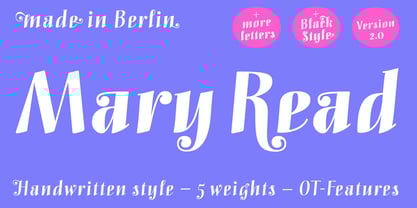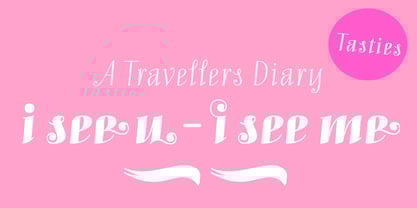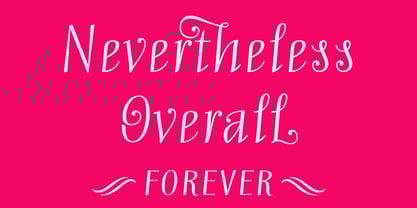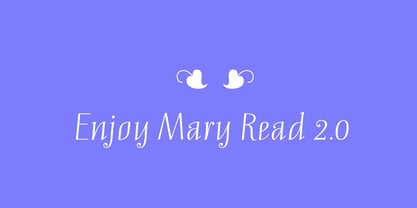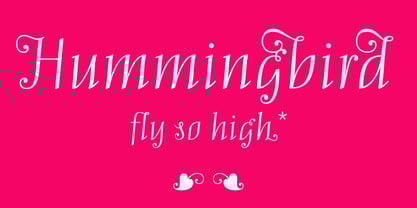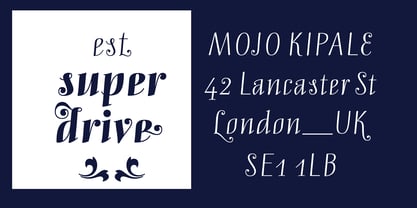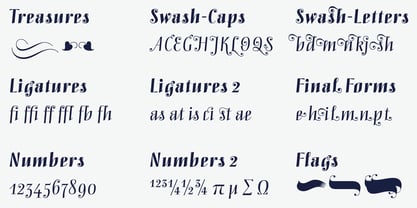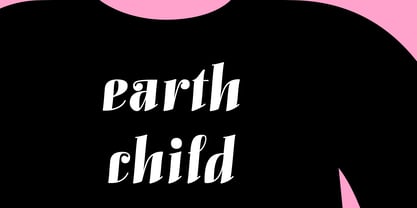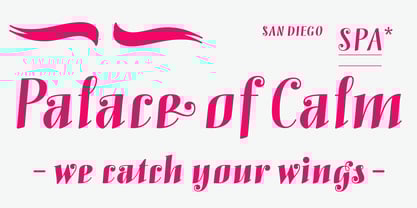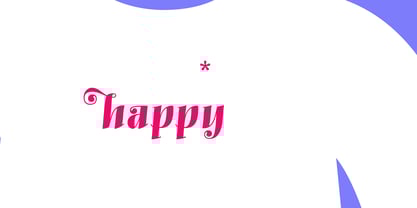
Mary Read
by Melli Diete
The Mary Read Font Family was designed by Melli Diete and published by Melli Diete. Mary Read contains 5 styles and family package options. More about this family
Mary Read is a handwritten-style display typeface, showcasing its fancy curves best in short texts and headlines. For typographic variety, the font includes a range of features and extras, such as initial and swash letters, flags and fleurons. Version 2.0 contains more exciting letters, extended language support, better curves, distinguished swashes, improved kerning and bug removal. Please enjoy the calm, yet sophisticated atmosphere. Set a noble style in elegance and freshness.